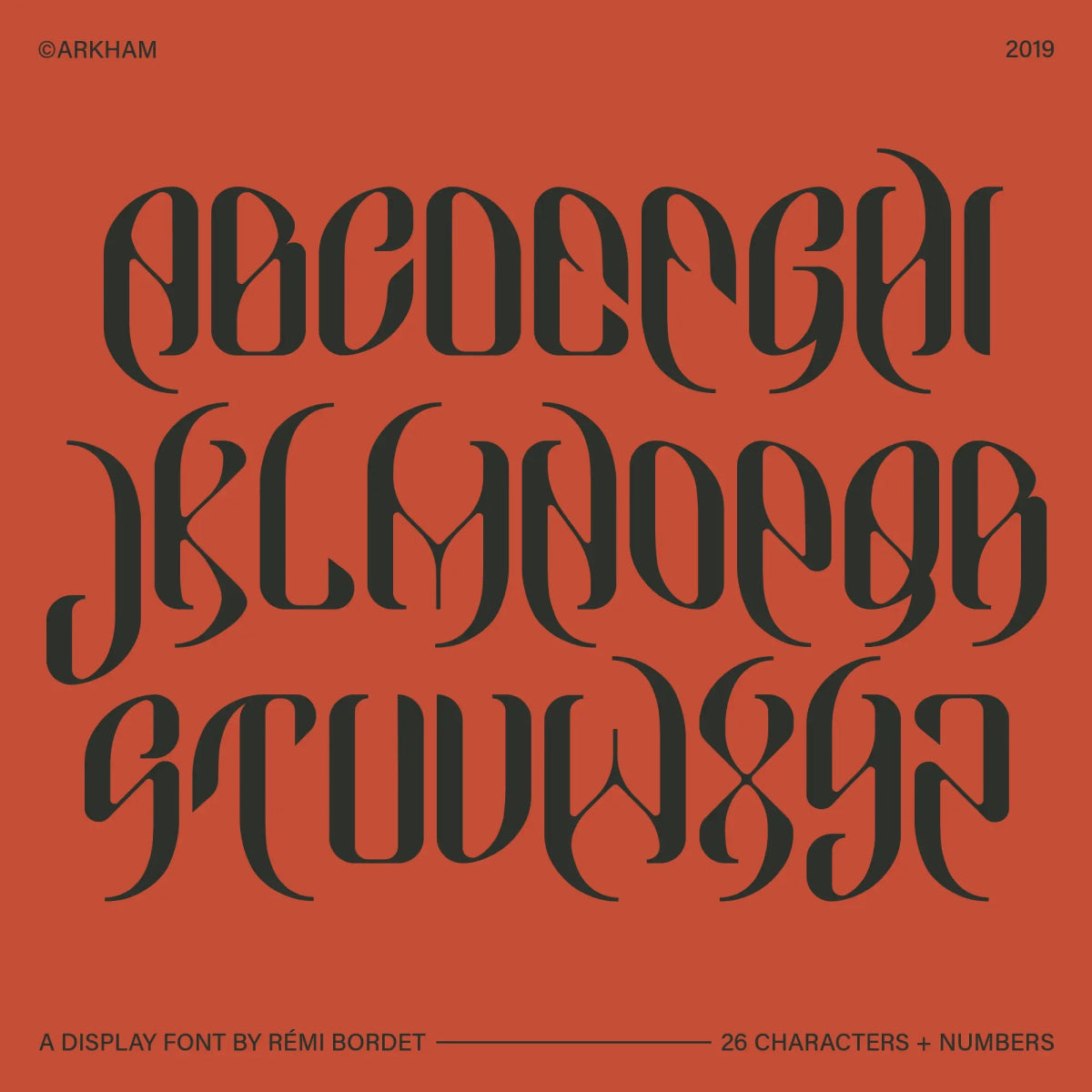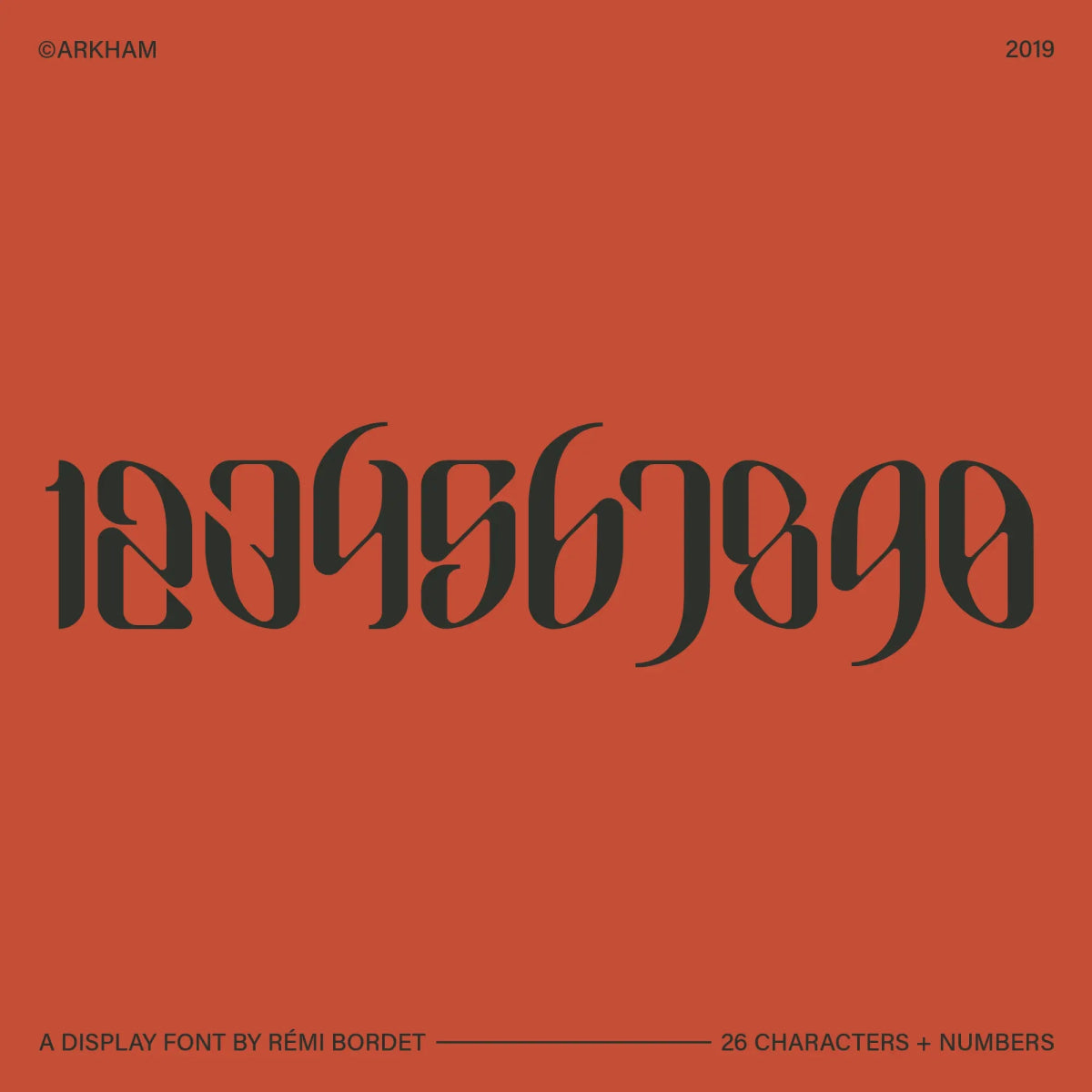
Arkham Display Font
by Rémi Bordet
Bold, angular, and undeniably eerie, Arkham is a gothic-inspired display font crafted for maximum impact. With its sharp curves and mirrored symmetry, it’s perfect for horror titles, album covers, dark branding, and experimental design work.
Font Features
• Uppercase A-Z Latin alphabet
• Full number set (0-9)
Rémi Bordet
Rémi Bordet is a french graphic and type designer and artist who creates bold, minimalist posters combining impactful imagery and typography. His work highlights contradictions, both aesthetically and symbolically speaking, through stylistic visual metaphors that blend brutalist aesthetics with emotional depth.